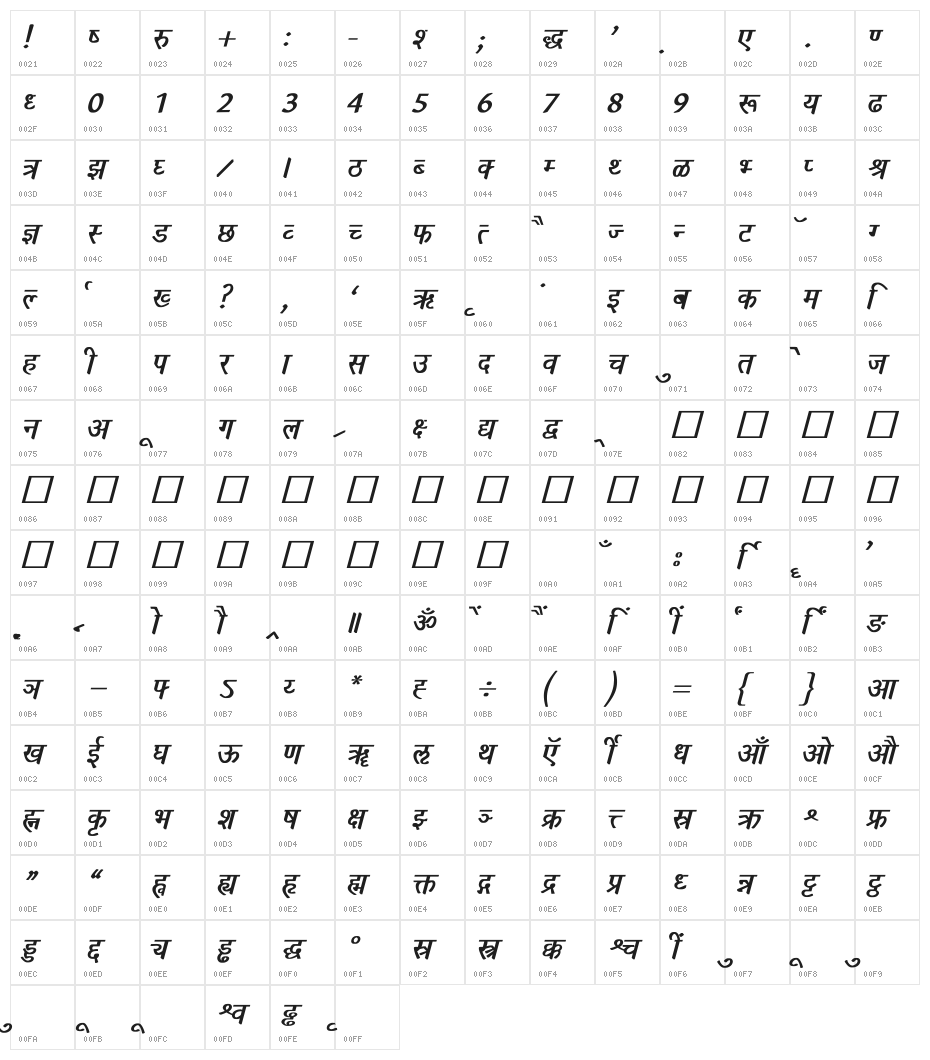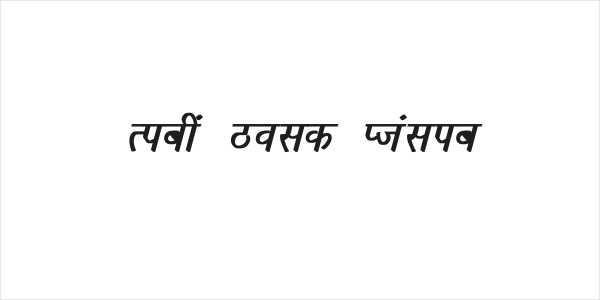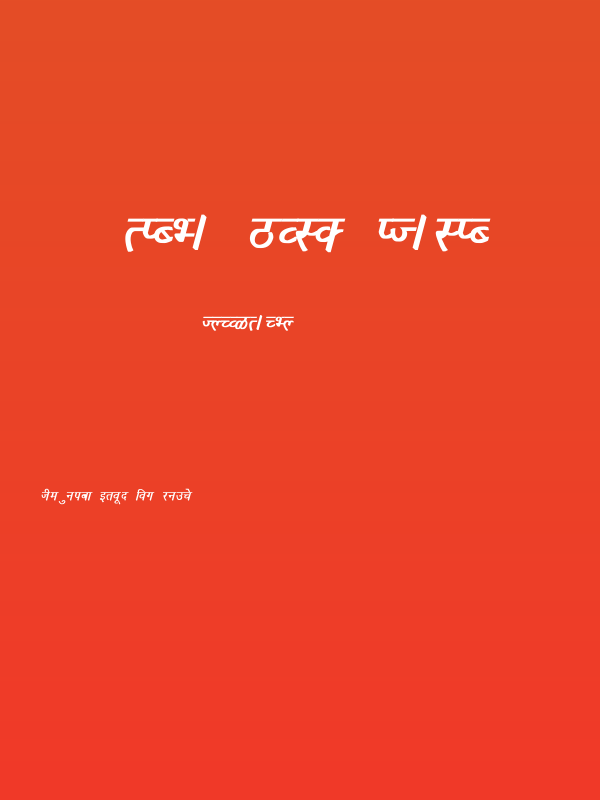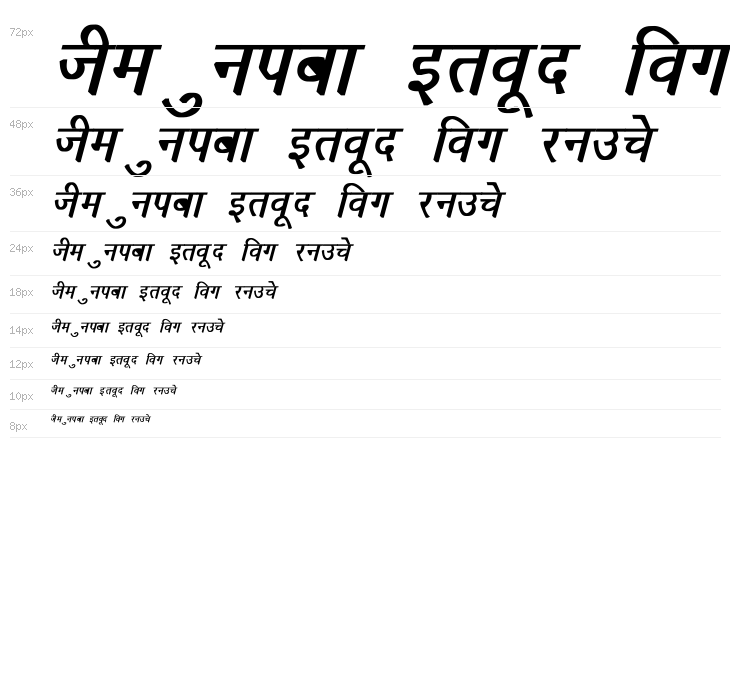
Richa Bold Italic Font
Richa Bold Italic Description
This font features a bold and italicized style, characterized by its dynamic and flowing strokes. The characters exhibit a strong presence with a slight slant, enhancing the italic effect. The bold weight provides a robust and impactful appearance, making it suitable for attention-grabbing text. The script-like quality adds a touch of elegance and sophistication, while maintaining readability. The numerals and special characters are consistent with the overall design, ensuring a cohesive look across all elements.
| Overall Style | Elegant, Dynamic |
| Use Case | Headlines, Branding, Editorial Design |
| Proposed Projects | Ideal for headlines, branding, and editorial design where a bold and elegant statement is needed. |